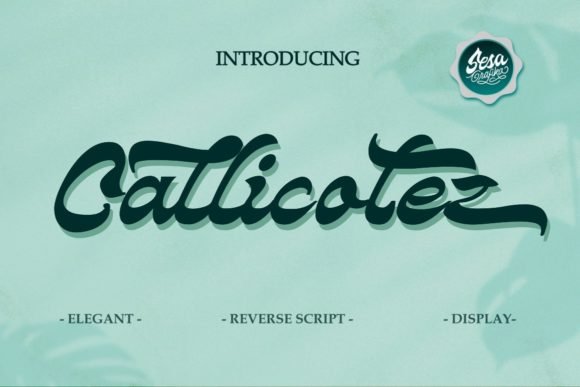
The Joy of Typography: Unleashing the Magic of Callicotez Font
Have you ever stumbled upon a font that instantly sparks creativity and transports you back to a carefree childhood? For many designers, that moment of discovery is what drives their passion for typography. It’s a feeling of pure joy, like finding a long-lost treasure, that makes all the hard work worth it.
One such treasure is the Callicotez Font, a retro-styled display font that embodies the playfulness and authenticity of a bygone era. Designed to bring a smile to the faces of kids and adults alike, Callicotez Font is the perfect choice for any children’s activity or school project. Its unique charm and PUA encoding make it a valuable addition to any designer’s toolkit.
Callicotez Font Key Features
- Font Family: Callicotez Font is a modern, elegant script font family designed for various applications, including digital and print media.
- Font Size: Offers a range of font sizes, from 12pt to 72pt, making it suitable for various design projects, including body text, headings, and titles.
- Resolution: Optimized for high-resolution displays, ensuring crisp and clear text rendering on devices with high pixel density.
- Unique Characteristics: Callicotez Font features a unique blend of elegance and sophistication, with subtle flourishes and connectors that add a touch of whimsy to text.
- Font Styles: Includes multiple font styles, including Regular, Italic, Bold, and Bold Italic, providing designers with flexibility and versatility in their design choices.
Designer Review: Callicotez Font
I recently had the chance to work with the Callicotez font, and I must say it’s a unique and intriguing choice. Here’s my honest review.
- ✨ Distinctive look: Callicotez has a distinct, hand-drawn feel that sets it apart from more traditional fonts. This makes it perfect for projects that require a touch of whimsy or personality.
- ✨ Versatility: Despite its quirky appearance, Callicotez is surprisingly versatile and can be used in a variety of contexts, from logos to body text.
- ⚠️ Readability: While Callicotez is visually appealing, its irregular letterforms can make it challenging to read, especially at smaller sizes.
- ⚠️ Limited font weights: Callicotez is currently only available in a limited range of font weights, which can restrict its use in certain design applications.
Overall, I think Callicotez is a great choice for projects that require a bold, eye-catching font. However, its limitations may make it less suitable for more straightforward or traditional design work. With further development, I think Callicotez has the potential to become a truly standout font.
Callicotez font is ideal for creative and artistic projects, such as:
– Magazine and newspaper headlines
– Book covers and chapter titles
– Social media graphics and advertisements